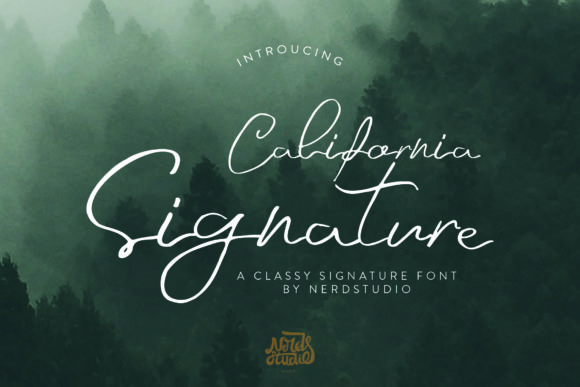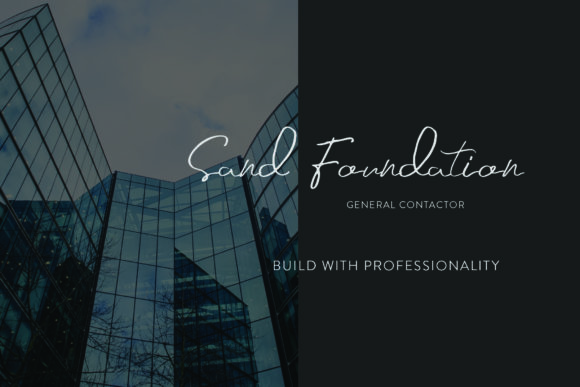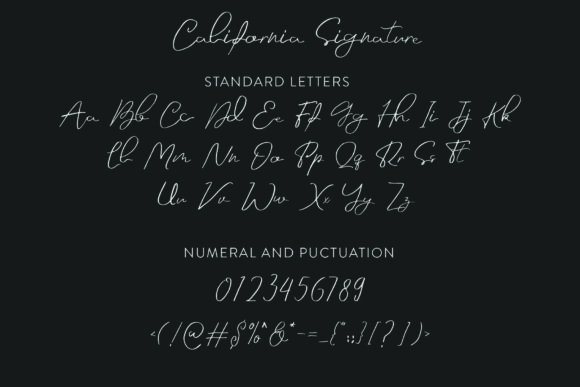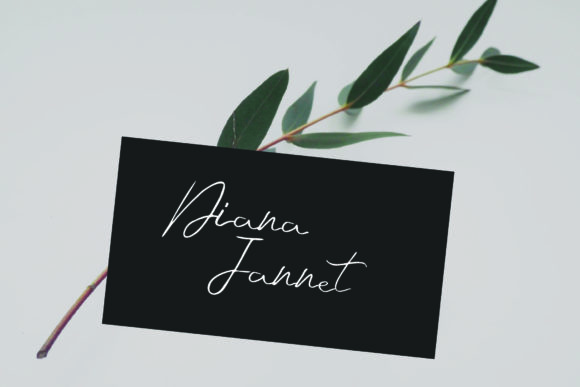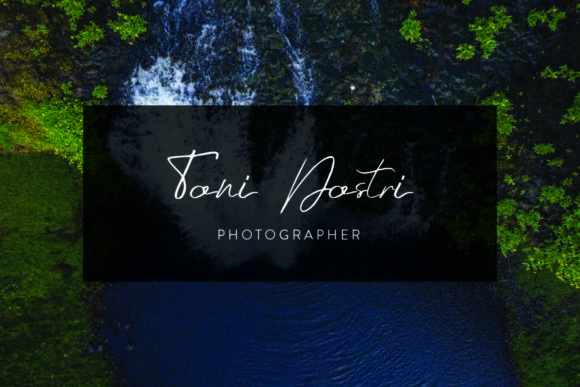
About California Signature Font
Introducing California Signature, a stylish and delicate script font that exudes elegance and sophistication. With its clean, thin, and smooth vibe, California Signature is a perfect choice for any design that calls for a touch of refinement and style.
California Signature’s stylish and delicate script design sets it apart as a font that captures attention and adds a sense of grace to your designs. Its flowing and beautifully crafted letterforms carry a sense of elegance, creating a visually pleasing composition. Whether used for logos, branding, invitations, or other design elements, California Signature brings a sophisticated and stylish vibe.
The clean, thin, and smooth appearance of California Signature adds a modern touch to your designs. It carries a sense of simplicity and minimalism, allowing the focus to be on the beauty of the script. California Signature’s clean lines and smooth curves create a visually pleasing aesthetic that is both pleasing to the eye and easy to read.
The versatility of California Signature allows it to be applied to various design projects. Whether it’s for branding materials, wedding invitations, social media graphics, or any other creative endeavor, California Signature adds a touch of refinement and style that elevates the overall visual appeal.
In addition to its stylish appearance, California Signature is designed to be versatile and adaptable. It can be used for both formal and informal designs, making it suitable for a wide range of applications. Whether you’re aiming for a luxurious brand identity or a delicate wedding invitation, California Signature complements the desired aesthetic with its stylish and delicate script.
California Signature’s beauty and versatility make it a hit in any design where it is applied. Its clean, thin, and smooth vibe adds a modern and refined touch that captivates viewers and creates a lasting impression. From logos to branding, invitations to social media posts, California Signature enhances the overall aesthetic and elevates the design to a new level of elegance.
In summary, California Signature is a stylish and delicate script font that brings elegance and sophistication to your designs. Its clean, thin, and smooth vibe makes it a perfect choice for various applications. Embrace California Signature and let its refined and stylish appearance elevate the visual appeal of your designs, creating a captivating and memorable result.